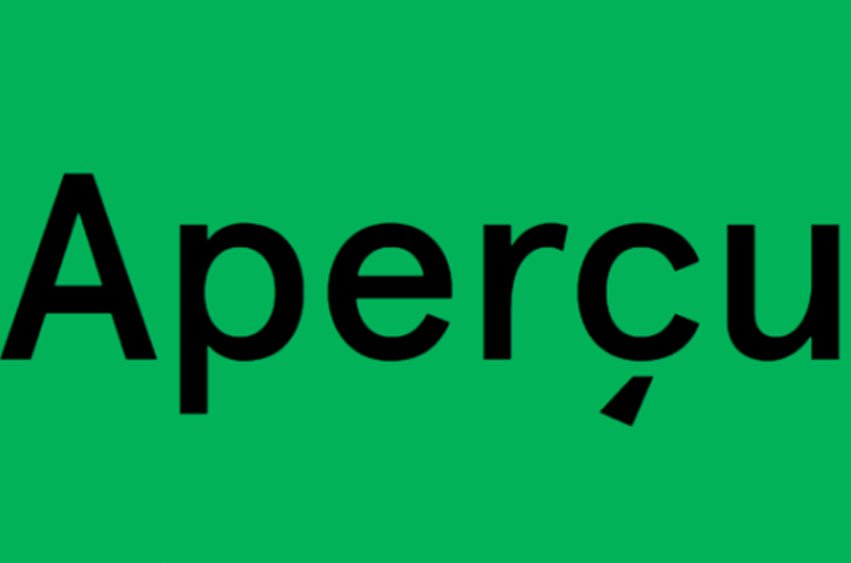
Apercu Font Family was started in December 2009, and has been trialled and tested through a number of design comissions taken on by The Entente through 2010. The conceit behind Aperçu was to create a synopsis or amalgamation of classic realist typefaces: Johnston, Gill Sans, Neuzeit & Franklin Gothic. Since its release in August 2010, Aperçu quickly found its position in the market, being used across a variety of different media and sectors around the world in both print and web.
It has been utilized by institutions such as MOMA, De Wiels, Zeit Magazine and the Walker Art Center. It seemed a fitting point to look at extending its support for Central Eastern European and Cyrillic-based languages. Now with more than 530 characters per weight, Aperçu Pro arrives.
Furthermore, bringing us to the present day, we extended Aperçu to included the heavier weights of Black, Black Italic and Mono Bold, allowing for a further graphic use at the extremities of the type family.